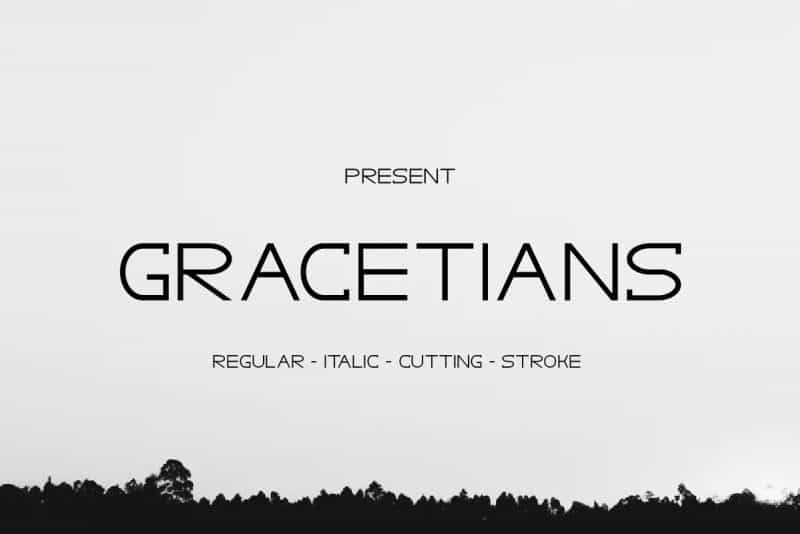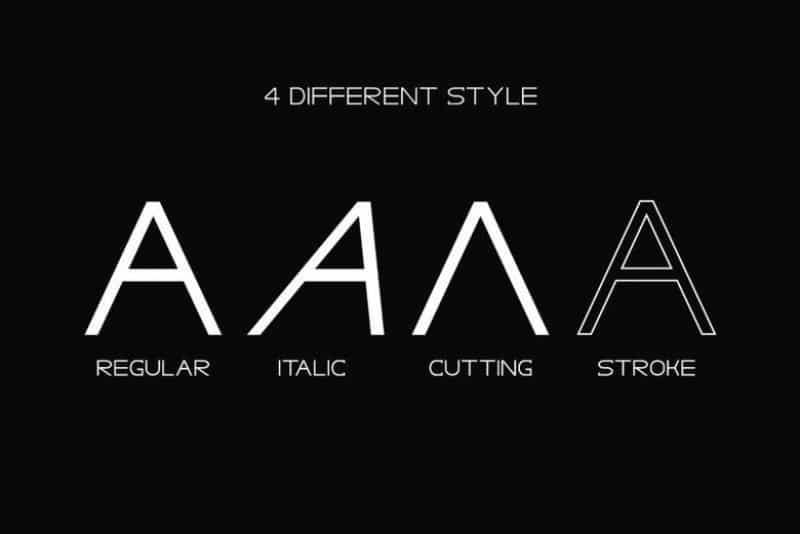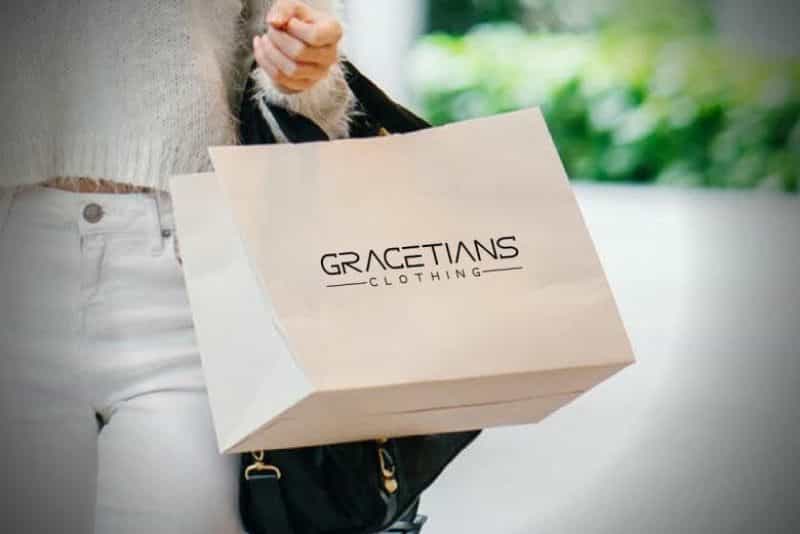
GRACETIANS is a contemporary font that is futuristic and stylish at the same time. This is a fresh SANS Display font with the glyph that is one of a kind and exclusive. It will be the best for branding, logo, etc. because it is light and at the same time beautiful. Excellent for stationery, business card, signage, flyer, brochure and many more.